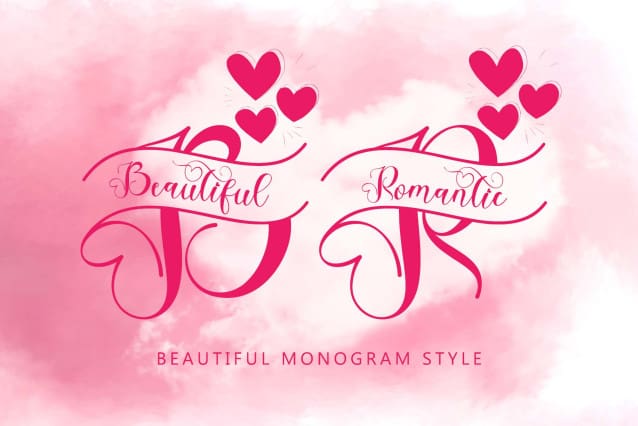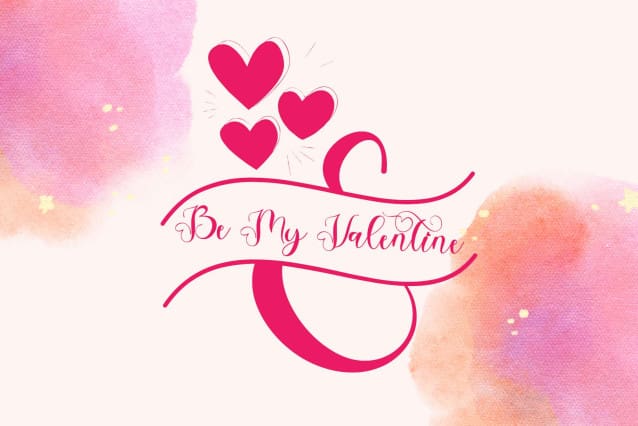
Beautiful Romantic Monogram Font
Beautiful Romantic Monogram Font is a beautiful monogram font that comes with capital letters, lowercase letters, numbers, monograms, punctuation, and multilingual support. Perfect for wedding, invitation, logo, sticker, poster, print, banner, branding, winter, christmas, valentine, easter, and more.